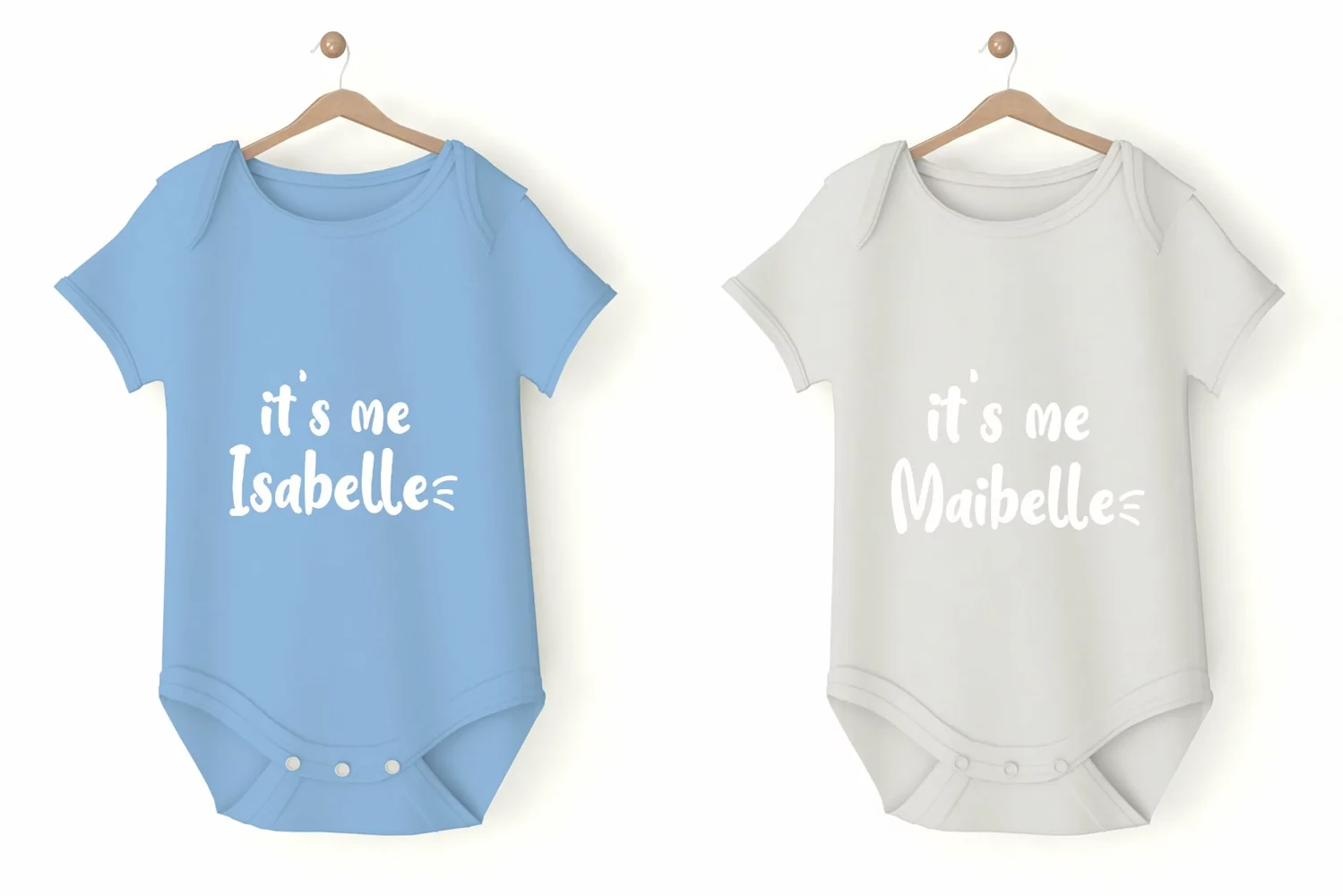
Easter Bunny is a cute and friendly display font, that can easily stand out. Simple but with a strong visual effect, this font will instantly make your creation more appealing than any others.
Easter Bunny